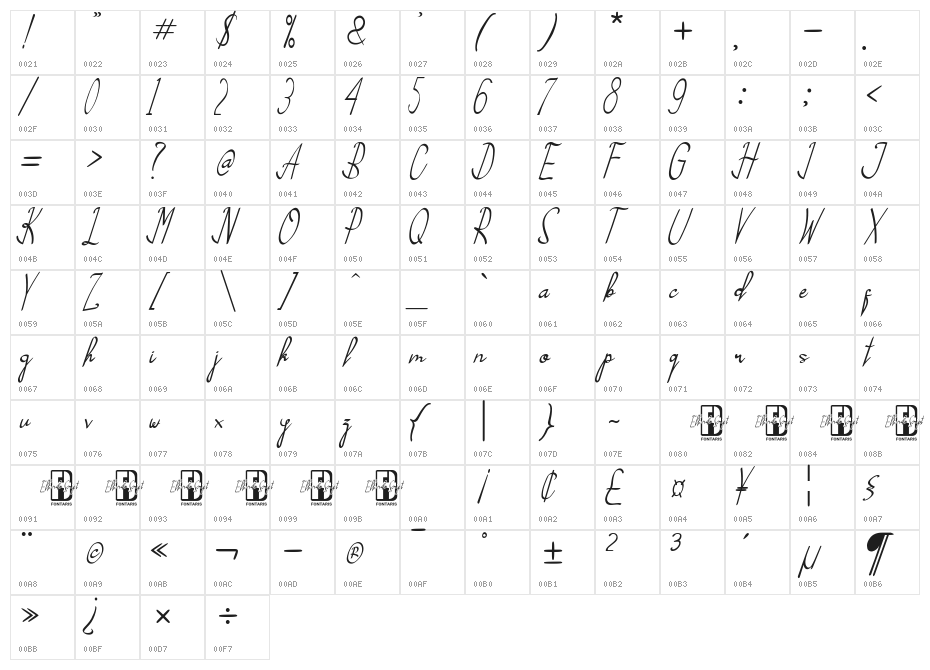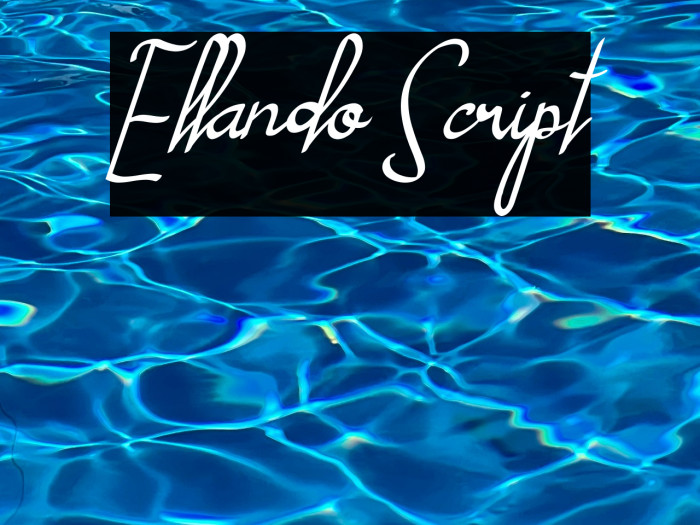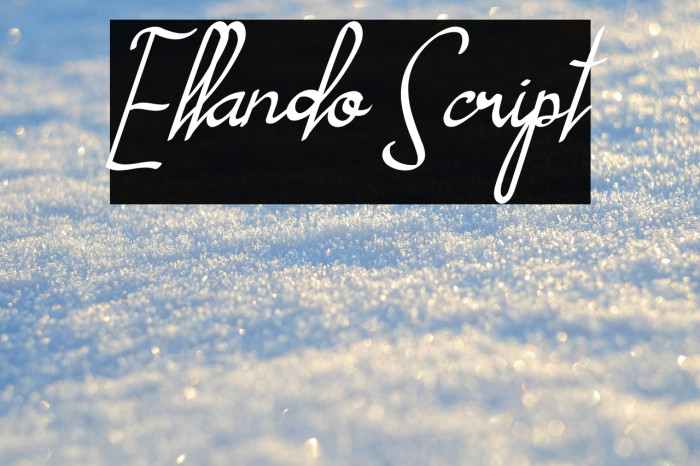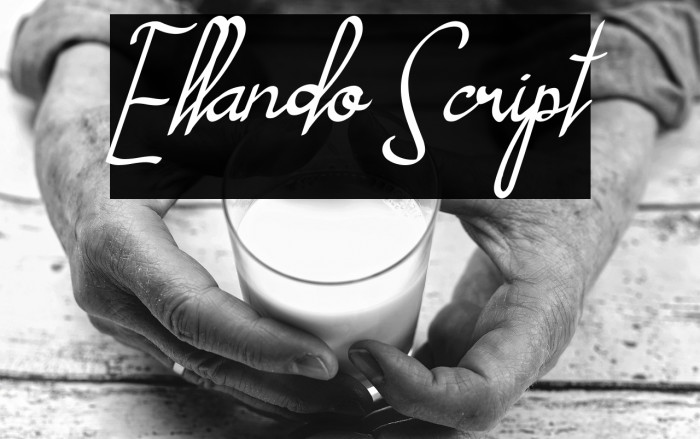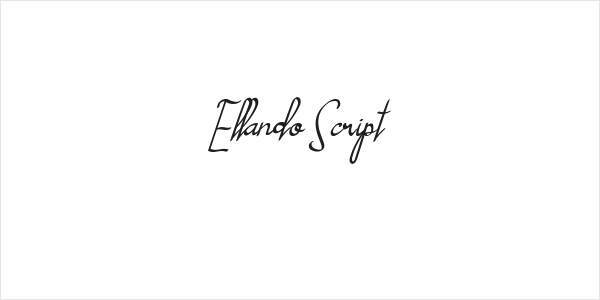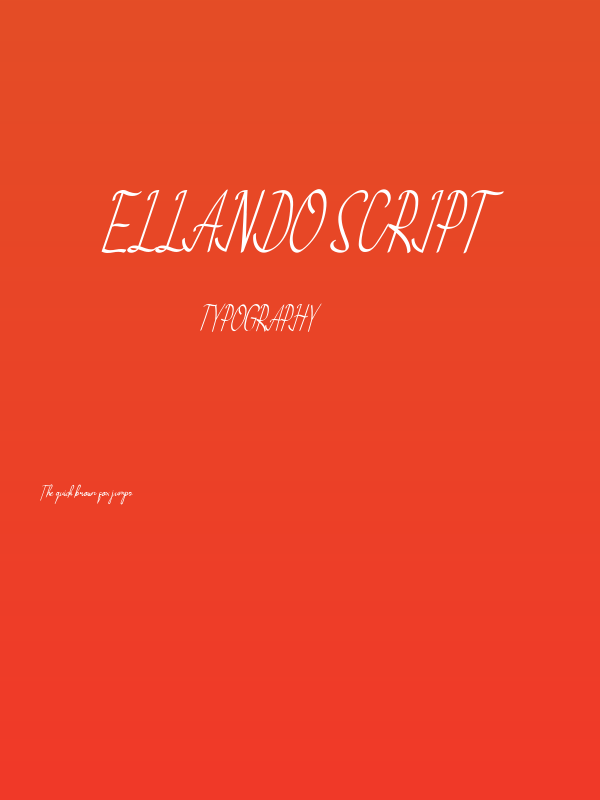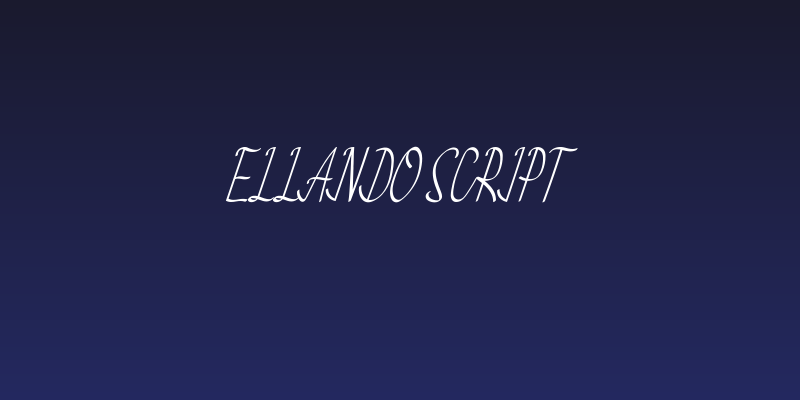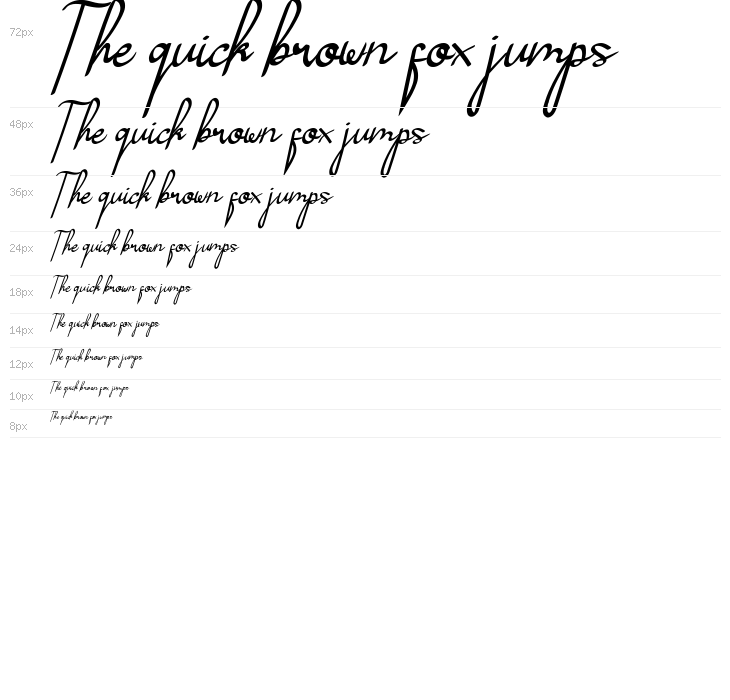
Ellando Script Font
Ellando Script Description
This font exudes elegance and fluidity, characterized by its cursive script style. The letters are connected, creating a seamless flow that mimics natural handwriting. The uppercase letters are tall and slender, while the lowercase letters maintain a consistent rhythm with graceful loops and curves. The numerals are distinct yet harmonize with the overall script style. Special characters are thoughtfully integrated, maintaining the font's cohesive appearance. This font is perfect for projects that require a personal touch, such as invitations, greeting cards, and branding materials.
| Overall Style | Elegant, Handwritten |
| Use Case | Headlines, Invitations, Personal Branding |
| Proposed Projects | Ideal for wedding invitations, personal branding, greeting cards, and elegant stationery. |